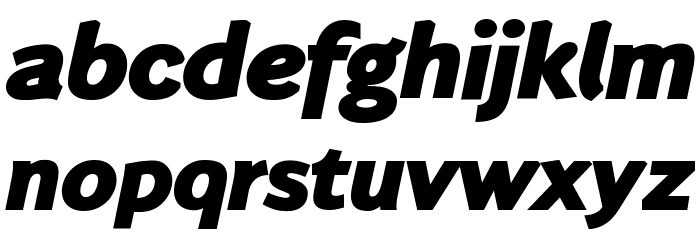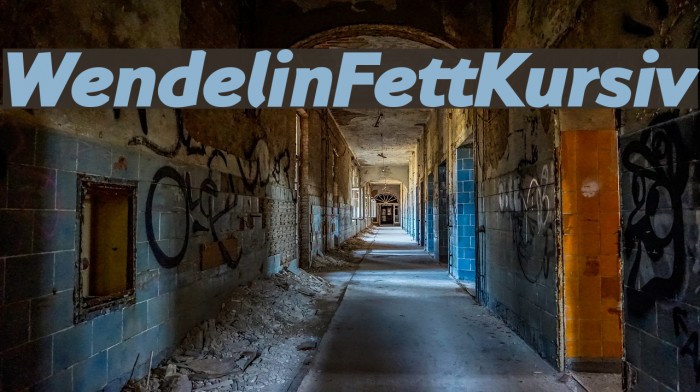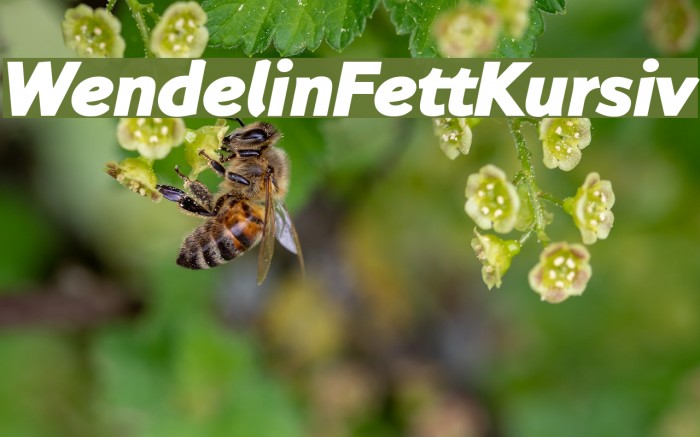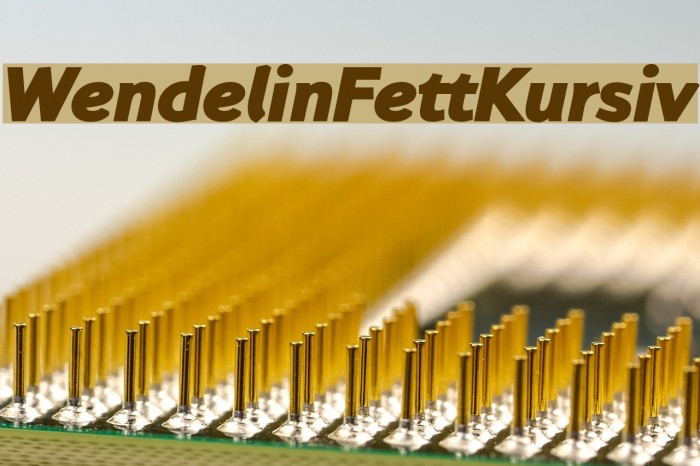
WendelinFettKursiv Font
This font features a bold and italicized style, characterized by its strong and dynamic presence. The letters are slightly slanted, giving a sense of movement and energy. The strokes are thick and consistent, providing a robust appearance that commands attention. The uppercase and lowercase letters maintain a uniform width, ensuring readability while adding a touch of elegance. The font's design is modern yet timeless, making it versatile for various applications. Its bold nature makes it suitable for headlines and titles, while the italic slant adds a creative flair.
A bold, italicized font with a strong, dynamic presence.
- Proposed Projects: Ideal for branding, advertising, posters, and any project requiring a bold statement.